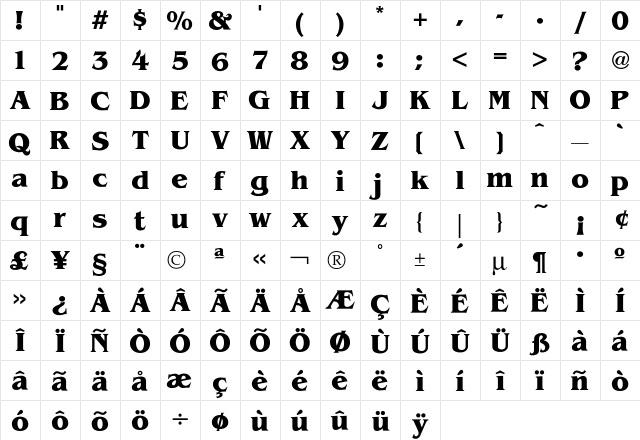
Benguiat Bold
Design Context for Benguiat Typeface
Benguiat takes a measured approach to typography — its balanced proportions and neutral character make it a reliable workhorse for both digital and print work. Its bold stroke weight gives it real presence on the page.
Pro Tip: Pair Benguiat with a font of contrasting weight or personality to build a more expressive typographic hierarchy.